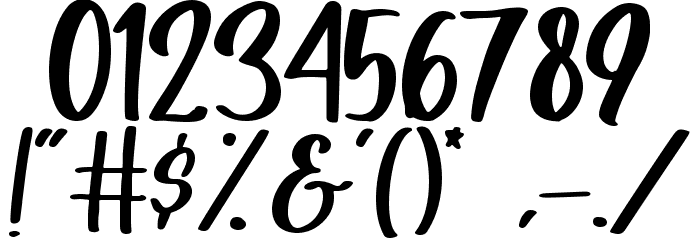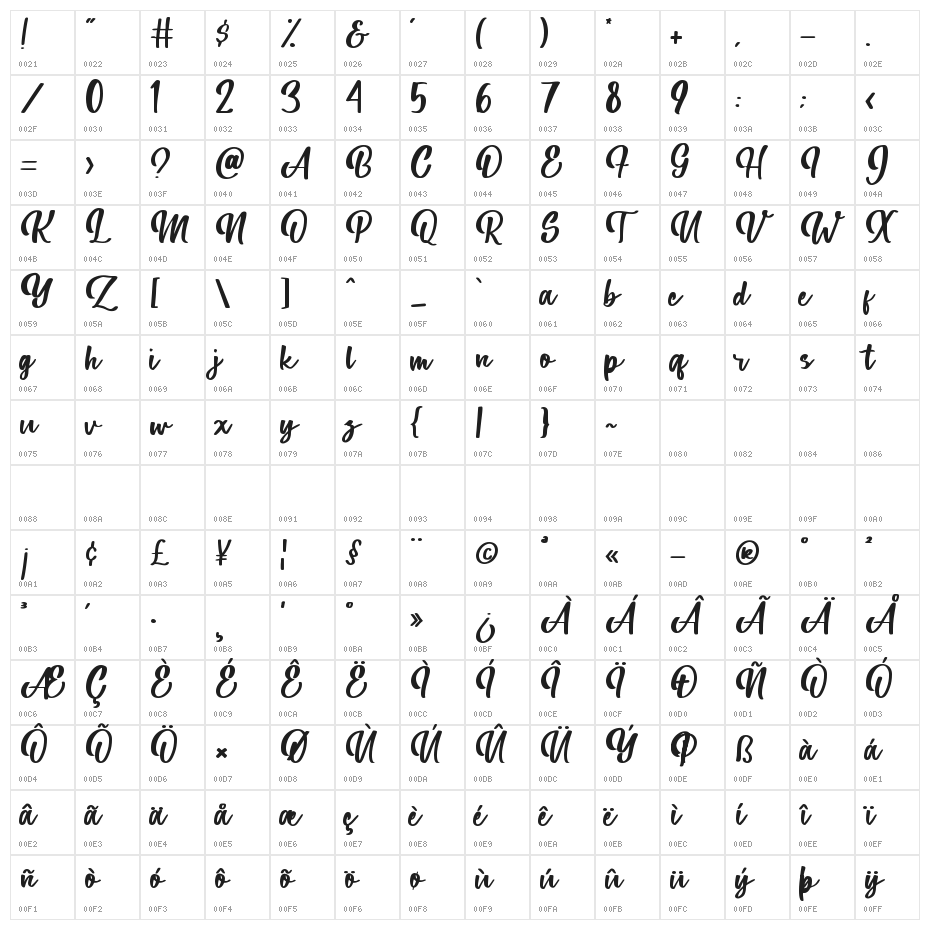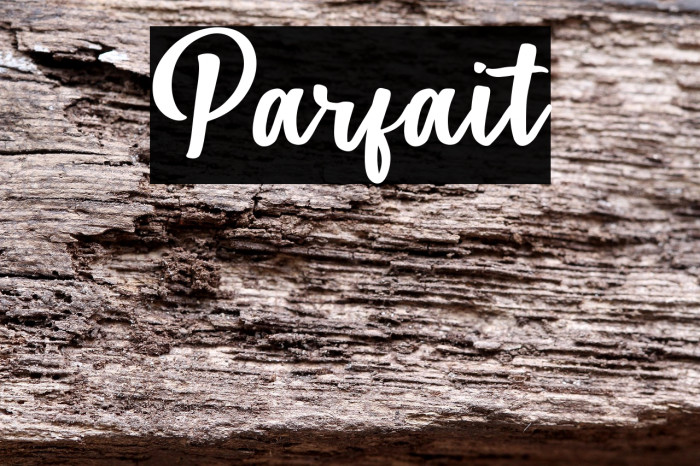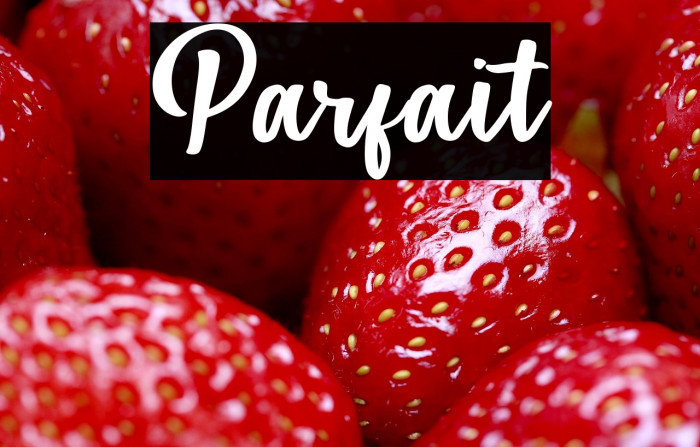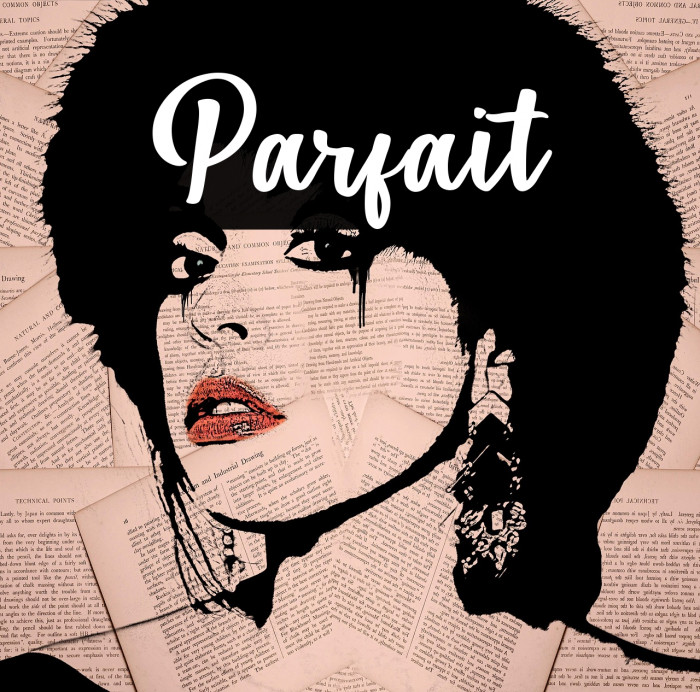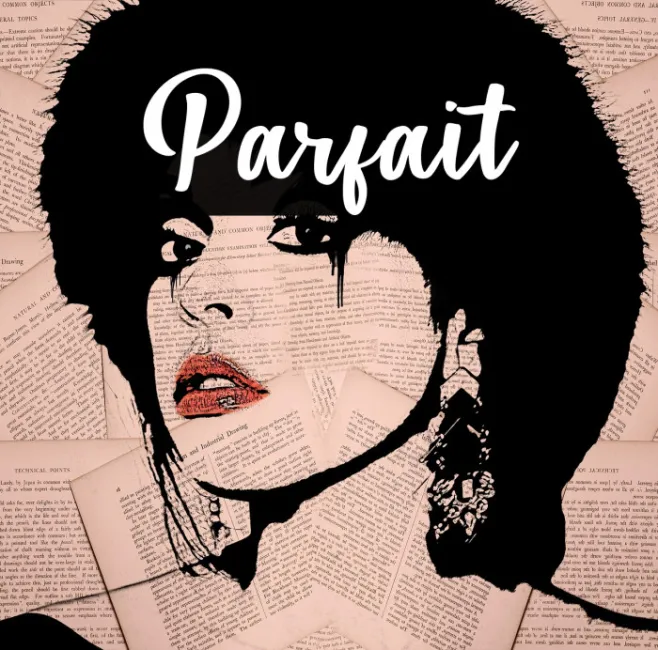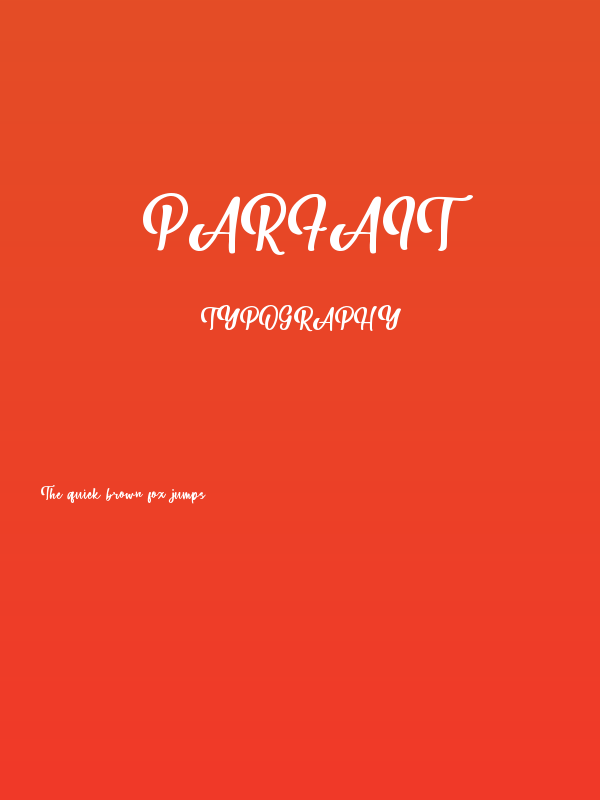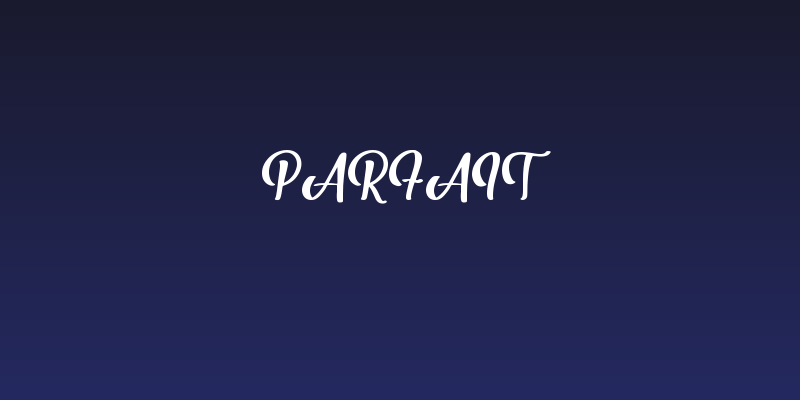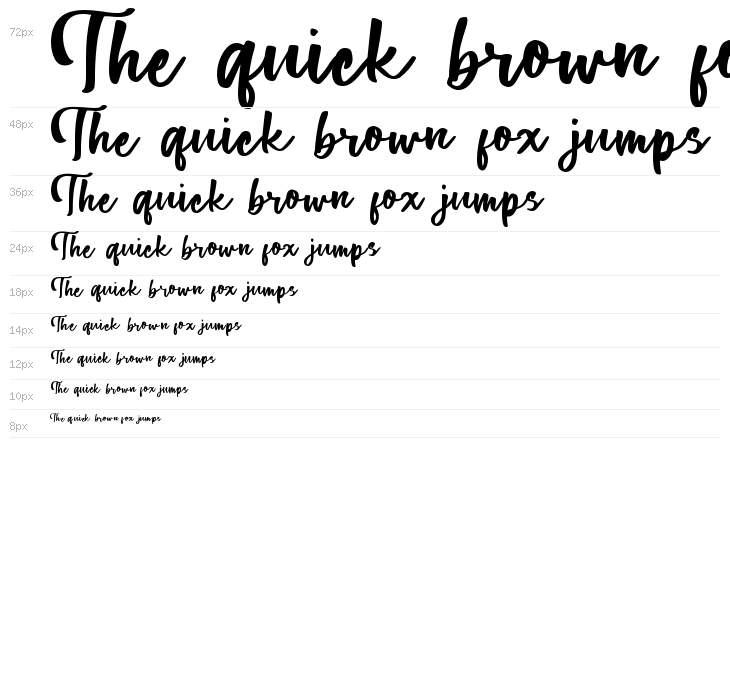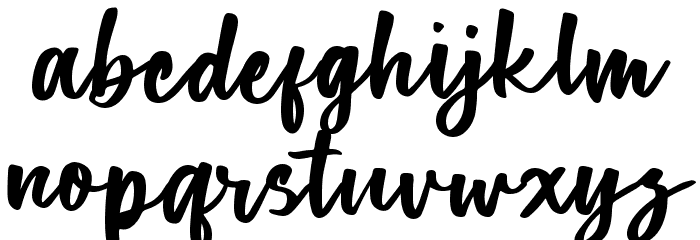
Parfait Font
Parfait Description
This font features a lively and flowing script style, characterized by its elegant curves and smooth connections between letters. The uppercase letters are bold and slightly slanted, giving a sense of movement and grace. The lowercase letters maintain a consistent rhythm, with rounded forms and a playful bounce. The numerals are dynamic and maintain the same fluidity, making them stand out while remaining cohesive with the overall design. Special characters are thoughtfully integrated, ensuring versatility in various contexts. The font's boldness and script nature make it ideal for projects that require a personal touch or a sense of elegance.